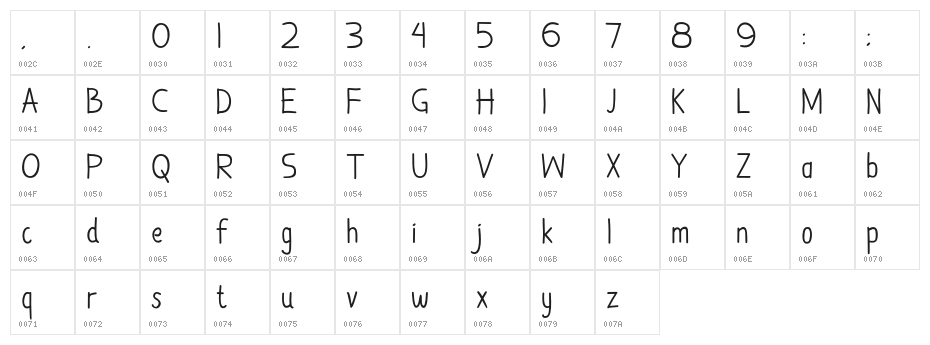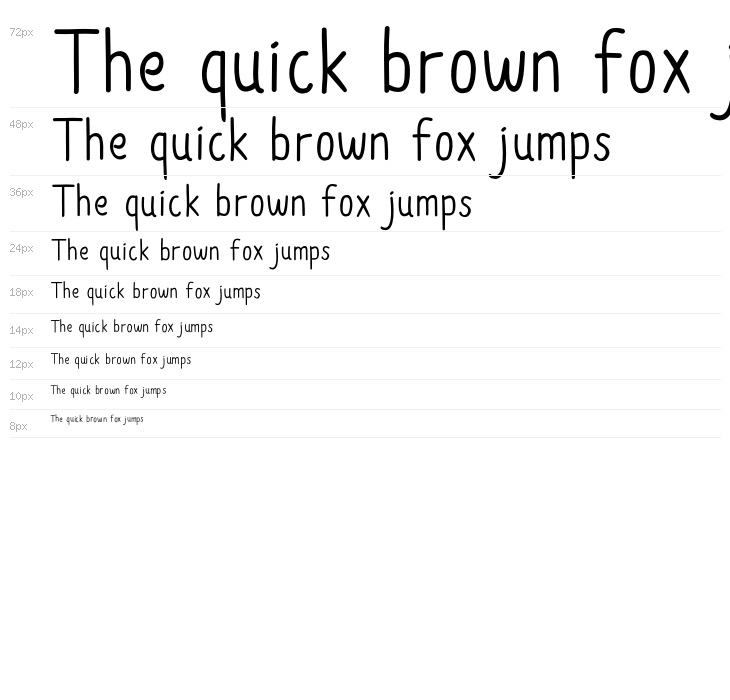
DamaiKpkPolri Font
DamaiKpkPolri Description
This font features a playful and informal handwritten style, characterized by its rounded edges and slightly uneven letterforms. The uppercase letters maintain a consistent height, while the lowercase letters exhibit a charming irregularity that adds to the font's casual appeal. The numerals are clear and legible, matching the overall whimsical aesthetic. The font's simplicity and friendliness make it suitable for projects that require a personal touch. Its design is approachable and versatile, making it ideal for a variety of creative applications.
| Proposed Projects | Ideal for children's books, greeting cards, casual branding, and playful social media graphics. |